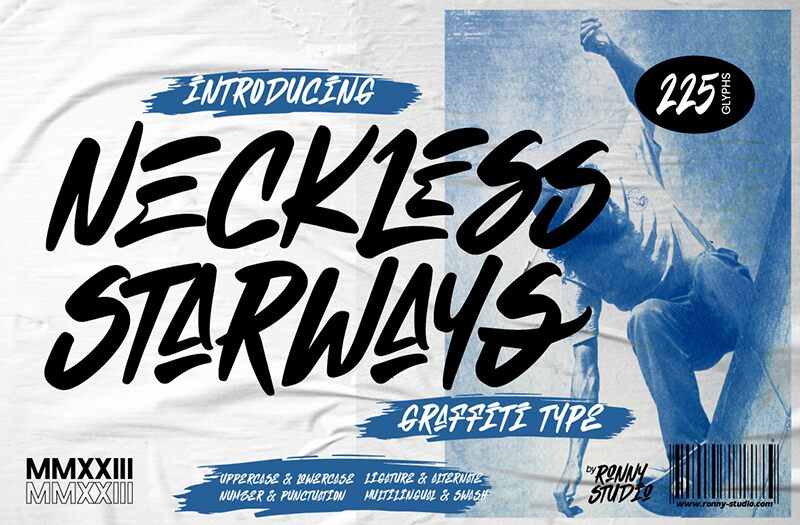
Neckless Starways, crafted by Ronny Studio, exudes an energetic, urban vibe synonymous with modern graffiti art. Its striking condensed design captures attention with a playful yet bold spirit, exemplifying the audacity of street culture. The fluid strokes create a sense of movement, inviting engagement and creating an immediate connection with the audience.
This font’s aesthetic appeal lies in its unique character; it balances stylish flair with readability, making it a perfect fit for vibrant designs. It thrives in expressive applications such as posters, music album covers, and urban-themed branding where visual impact is paramount. Neckless Starways speaks to creativity and individuality, ideal for projects aiming to evoke energy and spontaneity while paying homage to contemporary artistic expression.